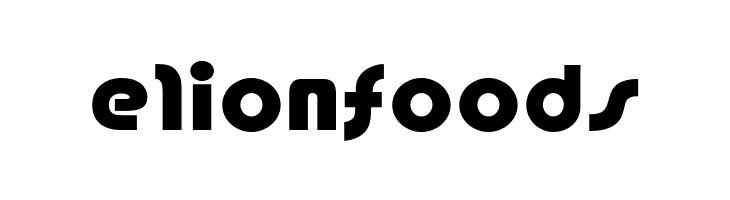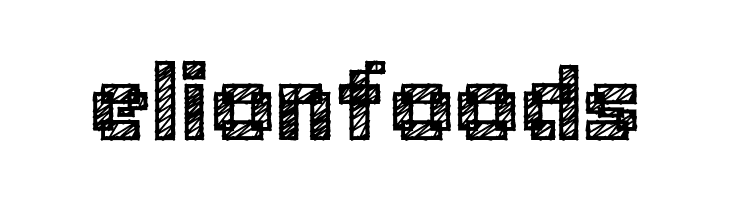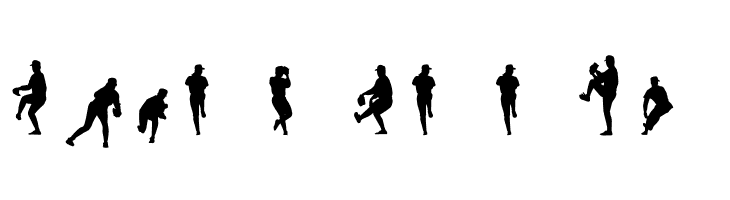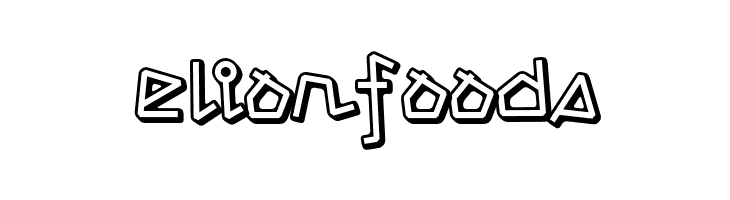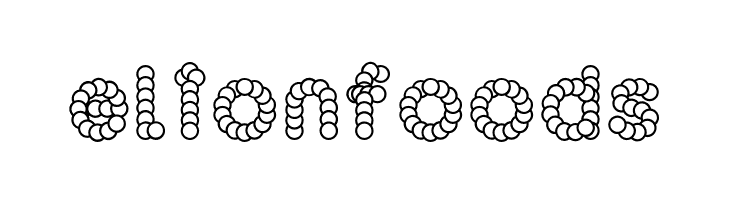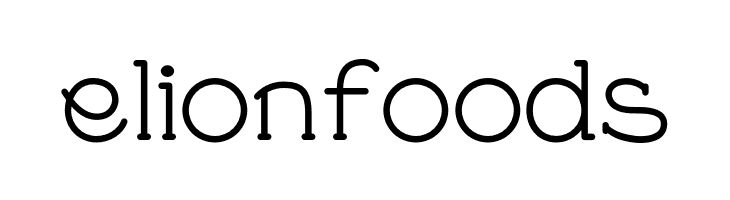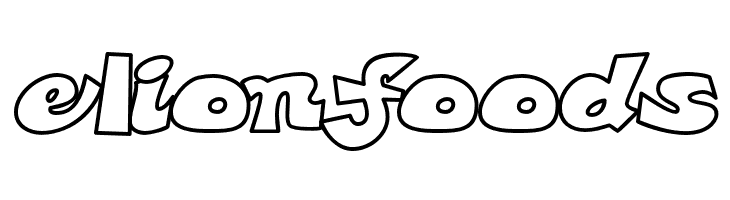
A bold, geometric font with rounded edges and a modern style.
A bold, sketch-style font with a hand-drawn, textured appearance.
Bold, blocky font with a sports jersey style.
A bold slab serif font with a strong, industrial aesthetic.
A bold, playful font with outlined characters and a cartoonish style.
A playful, decorative font with characters made of interconnected circular elements.
A modern, geometric font with rounded shapes and clean lines.
A playful, bold font with a cartoonish, outlined style.
A bold, blocky font with a 3D effect and retro digital style.
A whimsical and decorative font with curly, looping strokes and artistic flair.